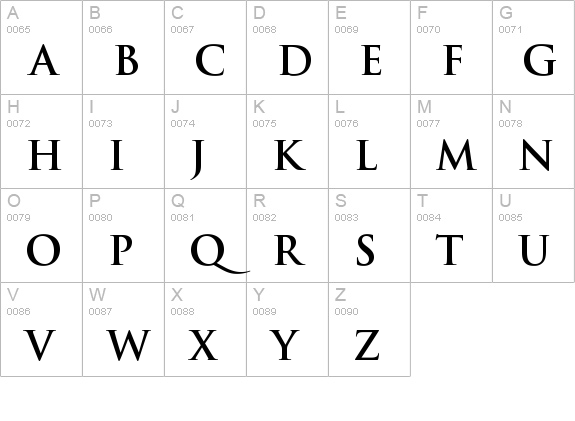
Trajan font free download mac. Trajan pro free font download. This font has 493 glyphs and 1000 units of it are equal to 1 em. This font has 493 glyphs and 1000 units of it are equal to 1 em.
Download free trajan regular font. It is inspired by the roman capital lettering carved into trajan’s column in rome. Download free trajan pro 3 font for photoshop, macos, windows, in all weights (trajan pro 3 woff2, trajan pro 3 woff, trajan pro 3 ttf, trajan pro 3 eot)
Download trajan bold font free for windows and mac. It is widely used, and is considered one of the best typefaces for extended text. Twombly completed the design, adding numerals and punctuation, as well as a bolder version to allow for text emphasis.
See preview trajan pro bold font, write comments, or download trajan pro bold font for free. Welcome to fontsmag, the site that pays. Basic, various trajan pro bold font free for maс os:
Basic, various trajan pro bold font free for maс os: Save the video file to your computer. Trajan pro font viewed 11760 times and downloaded 438 times.
It contains bold, italic and condensed font. Font trajan pro 3 with the bold characteristic belongs to the trajan pro 3 font family. Every font is free to download!
Browse by popularity, category or alphabetical listing. Trajan pro font is the standard and serif font typeface. Font trajan pro 3 with the bold characteristic belongs to the trajan pro 3 font family.
Download trajan pro regular for free. Trajan pro is a serif typeface that was designed by carol twombly for adobe in 1989. Trajan pro bold font download, best free ttf fonts, great collection of beautiful truetype fonts for windows and mac on fontsner.com
About this font family while designing trajan, carol twombly was influenced by the style of carved letters produced by the romans during the first century ad.